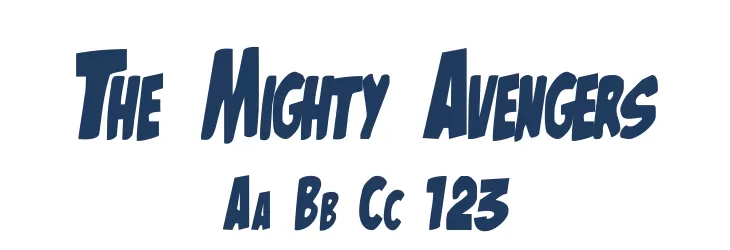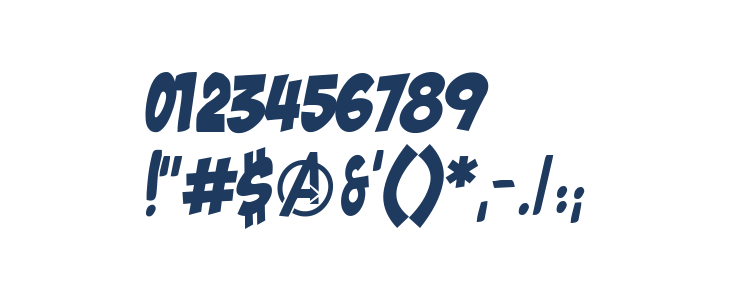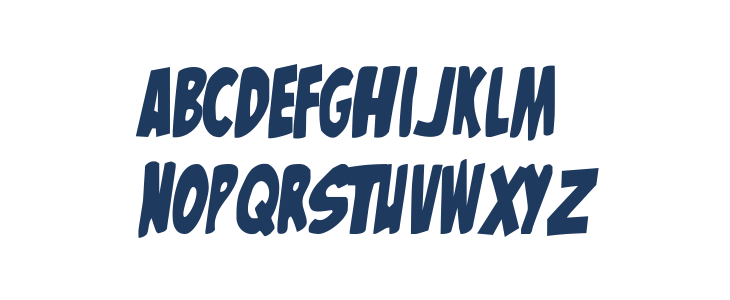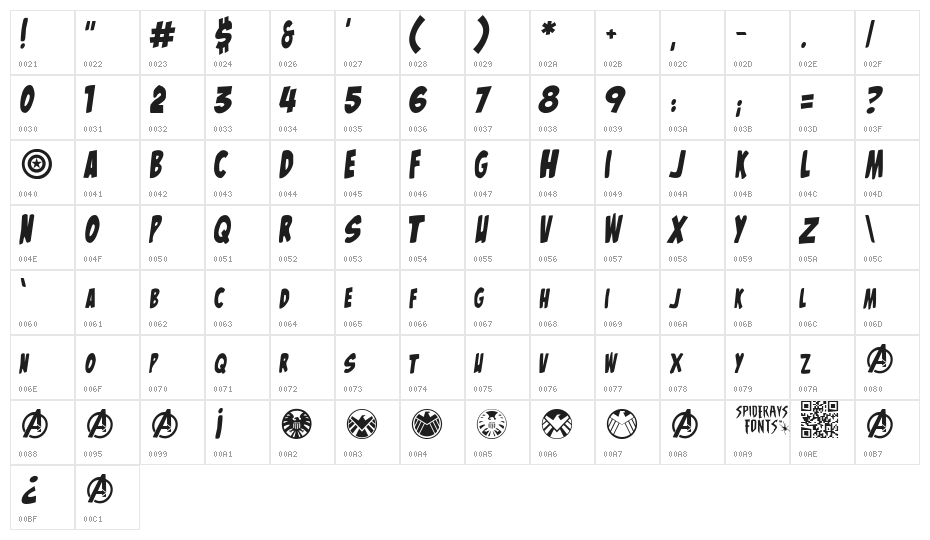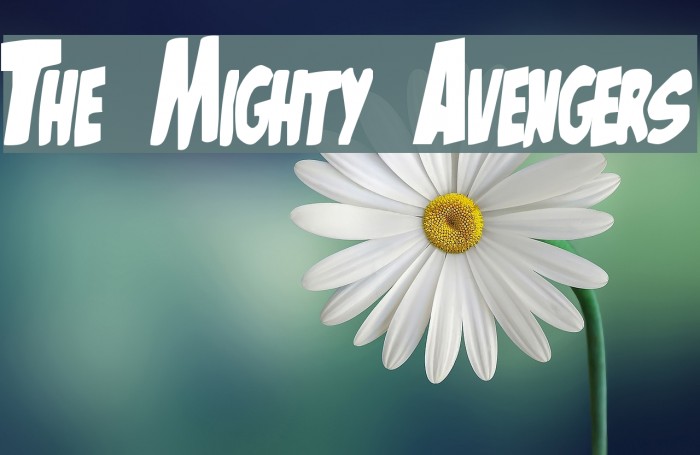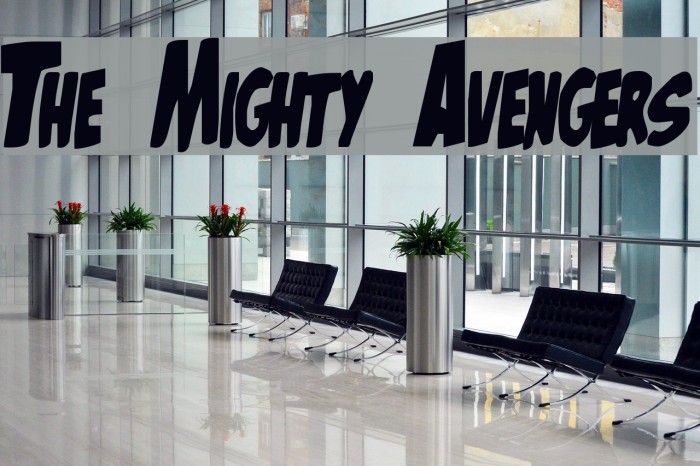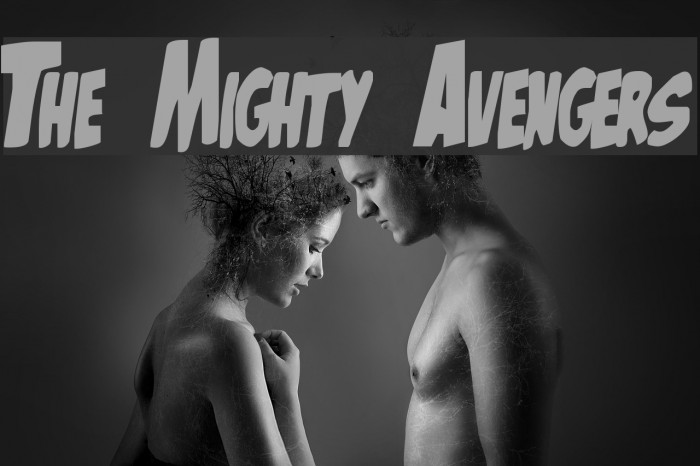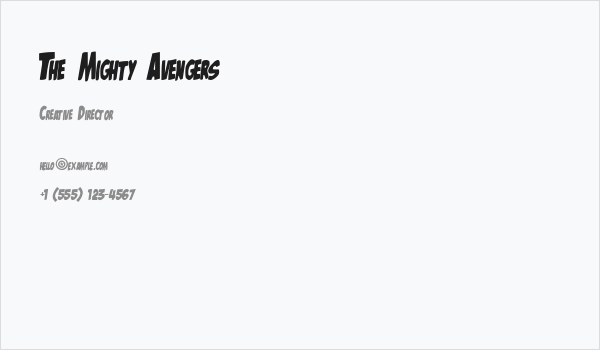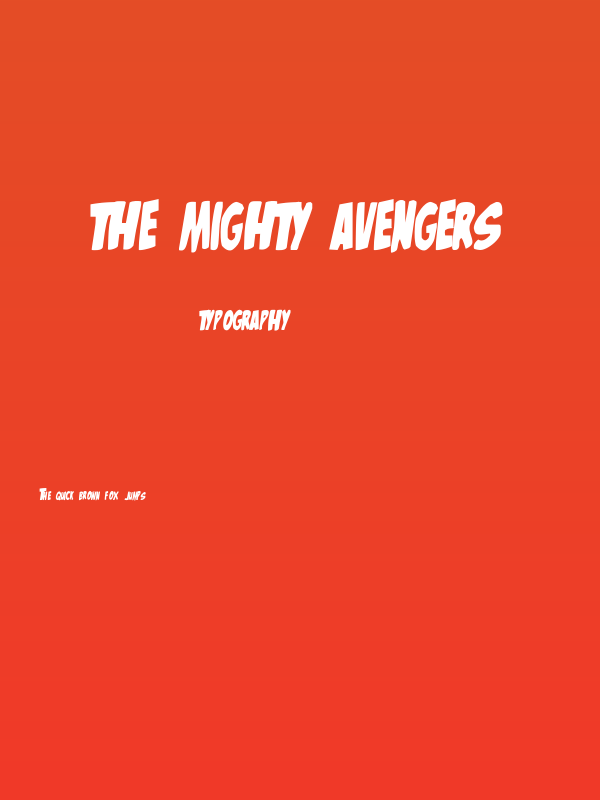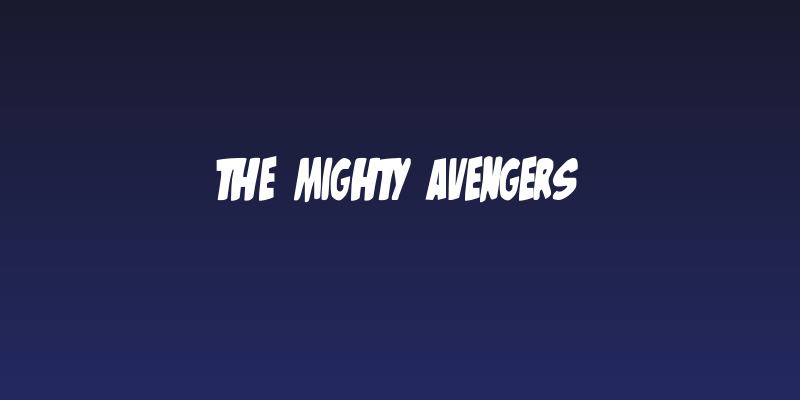
The Mighty Avengers Font
The Mighty Avengers Description
This font features bold, dynamic characters with a strong presence, ideal for capturing attention. The letters are slightly slanted, adding a sense of movement and energy. The strokes are thick and consistent, providing a robust and impactful appearance. The overall style is playful yet assertive, making it suitable for projects that require a bold statement. The numbers and special characters maintain the same energetic style, ensuring consistency across all text elements.
| Proposed Projects | Ideal for comic book titles, posters, branding for energetic products, and any design needing a bold, attention-grabbing font. |